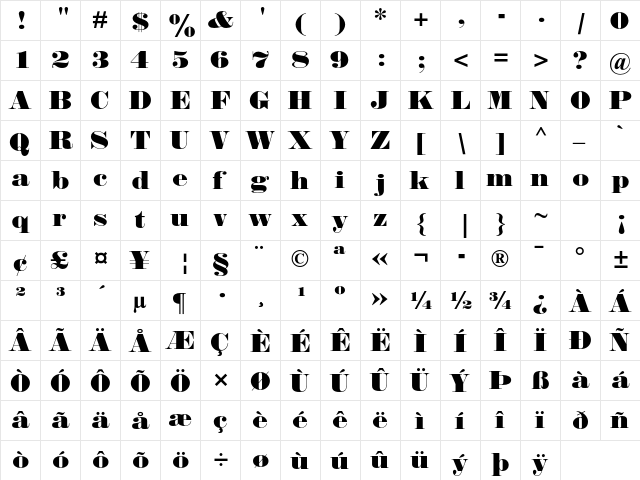
Falstaff MT Std Regular
Design Context for Falstaff MT Std Typeface
Falstaff MT Std takes a measured approach to typography — its balanced proportions and neutral character make it a reliable workhorse for both digital and print work.